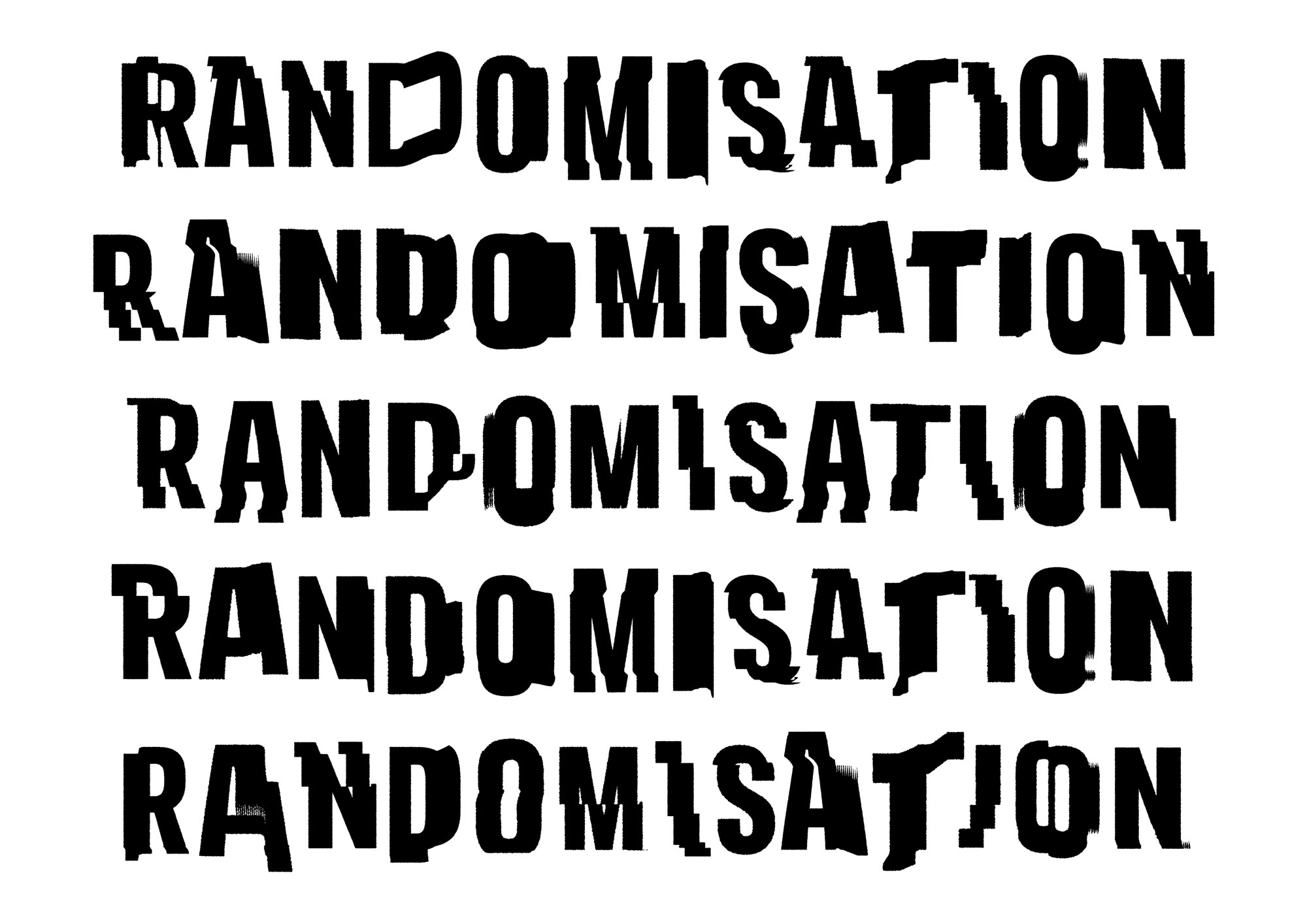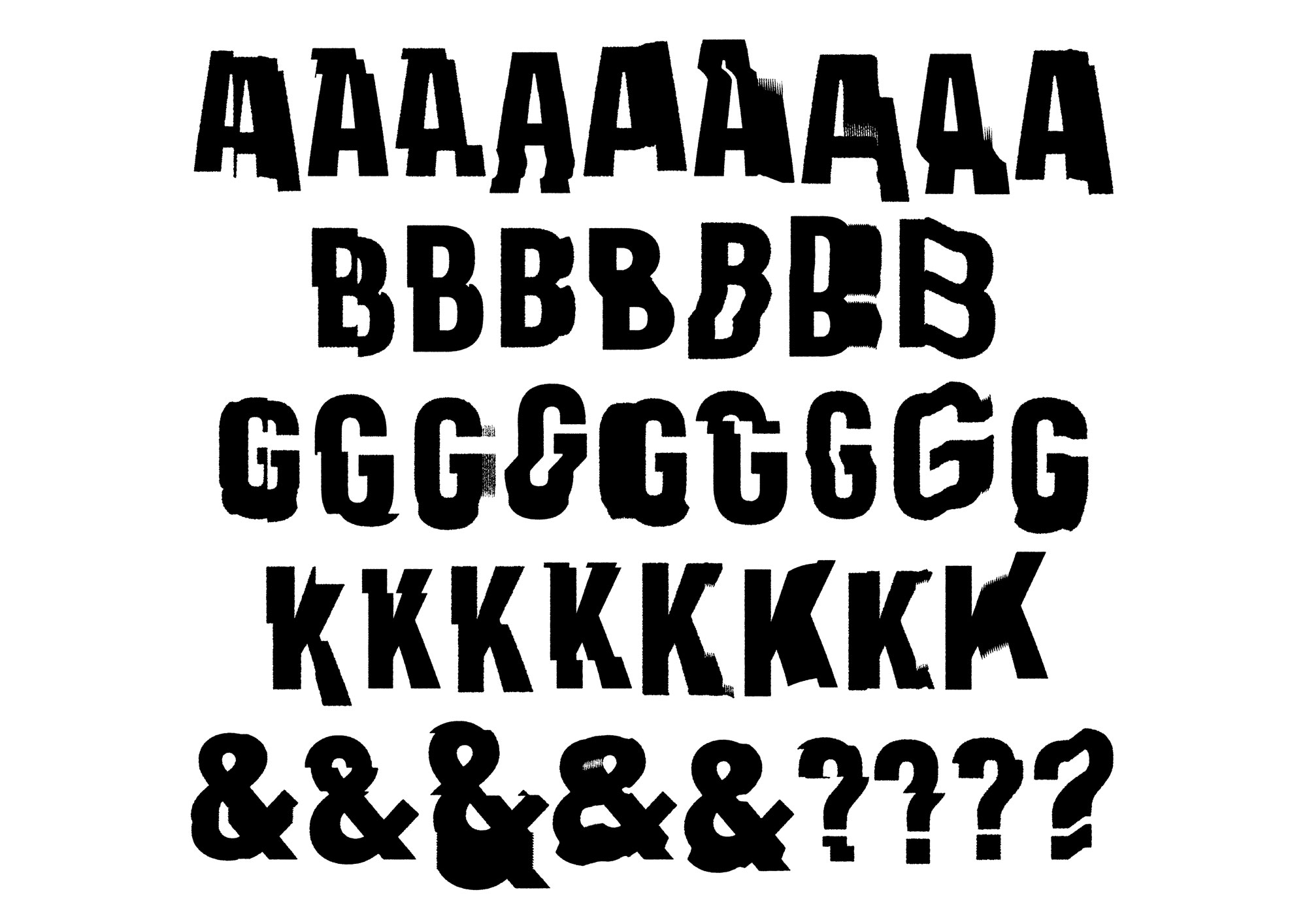
Name: FS Erskine
Designers: Jimmy Turrell and Krista Radoeva
Foundry: Fontsmith
Release Date: April 2018
Back Story: FS Erskine is a bold, playful, deliciously tactile typeface developed as a partnership between London foundry Fontsmith with It’s Nice That and illustrator and graphic artist Jimmy Turrell. The idea was to create a typeface inspired by a place important to Turrell, and he opted for the Byker Wall, a council estate in Newcastle, North East England. Built between 1969 and 1982, the estate was a colorful riposte to the stark, grey Brutalist style favored at the time. As such, FS Erskine takes this idea of adding something a little radical and applies it to the world of fonts, with each character in the set accompanied by a brightly hued shape. Turrell wanted to create a font that acts as building blocks for a broader structure that recalls the Tom Collins House, “probably the most famous part of the Byker Wall.”
Working with It’s Nice That, Turrell developed visual references inspired by the architecture of the Byker Wall, before being developed into a character set by Krista Radoeva.
How did it get made? “Jimmy came over to the studio and showed us his work and told us a bit about Newcastle and what he was inspired by,” says Radoeva. “We gave him a simple skeleton for the letters and he went and completely transformed them into his style, cutting up and pasting into this sort of weird aesthetic that he has.
“At first it was very difficult to imagine how with his style—very cut-out, with photocopying and layers and textures and colors—that could work as a typeface. He wanted to make a point that he doesn’t like a clean, digital aesthetic, so we did our best to try and avoid that and bring as much character as possible into the font, while still making it a functional, digital typeface.”
Why’s it called FS Erskine? The Byker Wall development was designed by architect Ralph Erskine, so it seemed fitting the typeface should be named after him.
What are its distinguishing characteristics? The typeface is all capitals and has at least five different designs for each letterform, which are randomized. The characters form the first layer and can be used on their own or with the second layer of geometric shapes overlaid. “Adding texture to the characters makes them look like they were cut or torn from paper, rather than digitally drawn, and gives them a handmade feel,” says Fontsmith. Designers can choose any colors they wish from their usual word processing or design software, though Fontsmith and Turrell chose to stick to the primary colors for the images presented here, in a tribute to the colors of the Byker Wall.
“Digitizing these super weird shapes was quite difficult, especially in terms of making them work as a typeface,” says Radoeva. The final font has around 1,000 glyphs, as all the letters have different variations, each one with five to nine alternative shapes, and each letter with a different texture. “It was a challenging but great project to work on,” says Radoeva. “I rarely get told ‘just do what you want,’ with no constraints. We learned that a lot more things are possible, even in a digital font.”
What should I use it for? “It’s a very specific typeface,” says Radoeva. She recommends using it alone as a display font, or alongside illustration. “Often it’s hard to match type with illustration, so it would work well with a really expressive image, thanks to the texture and shapes,” she says.
What other typefaces do you like to pair it with? “I think because it is already very expressive it should go with something clear and simple,” says Radoeva. “Maybe something narrow like FS Dillon or Din.”